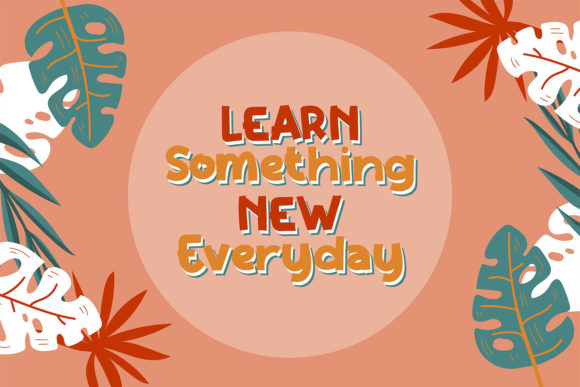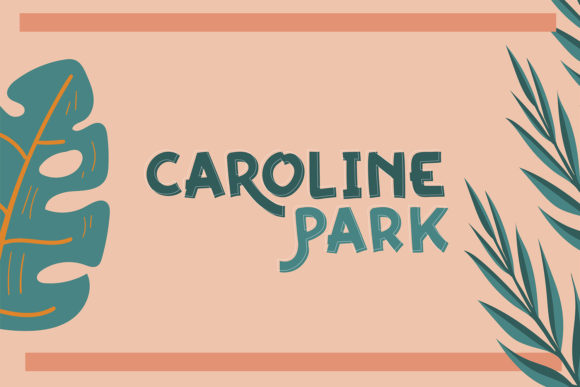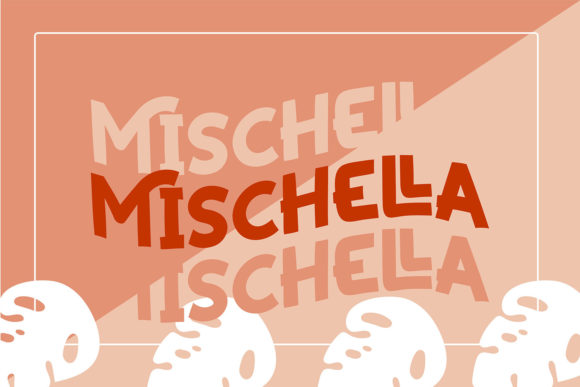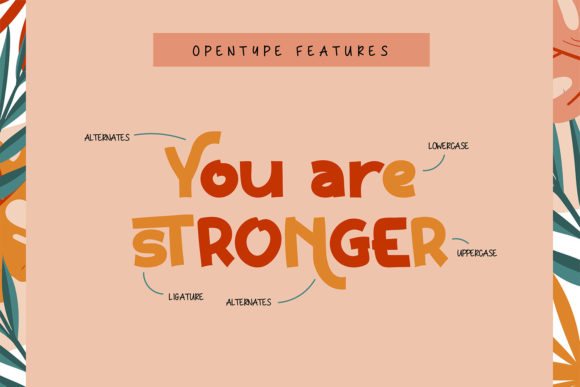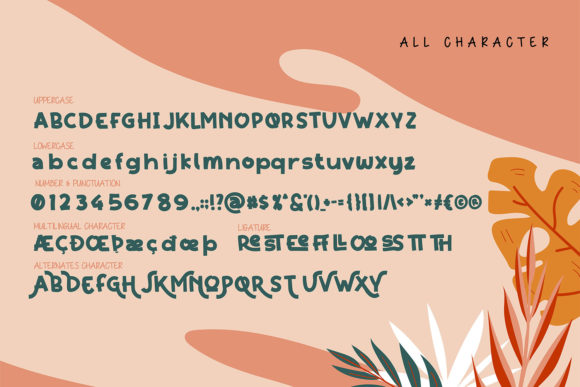
Introducing Forestina Font: The Fun and Trendy Display Font for Crafty Ideas
Are you a designer or crafter looking for a unique and eye-catching font to elevate your creative projects? Look no further than Forestina Font, a fun and trendy display font that’s perfect for a wide range of crafty ideas. In this article, we’ll take a closer look at Forestina Font, its features, and how it can inspire your next creative project.
What is Forestina Font?
Forestina Font is a modern and playful display font that’s designed to add a touch of whimsy to your designs. Its original look is sure to appeal to crafty enthusiasts and designers alike, making it perfect for a variety of projects, from letterheads and titles to stationery and more.
Key Features of Forestina Font
- PUA Encoded: Forestina Font is PUA (Private Use Area) encoded, which means you can access all of the glyphs and swashes with ease. This feature makes it easy to use and customize the font to suit your design needs.
- Fun and Trendy: Forestina Font has a fun and trendy vibe that’s perfect for crafty ideas and designs. Its unique look is sure to make your projects stand out from the crowd.
- Versatile: Forestina Font is a versatile font that can be used for a wide range of projects, from letterheads and titles to stationery and more.
Uses for Forestina Font
Forestina Font is a versatile font that can be used for a variety of projects, including:
- Letterheads: Add a touch of personality to your letterheads with Forestina Font.
- Titles: Use Forestina Font to create eye-catching titles for your blog posts, articles, and more.
- Stationery: Add a touch of whimsy to your stationery with Forestina Font.
- Signage: Use Forestina Font to create eye-catching signs for your business or event.
- Branding: Use Forestina Font to create a unique and memorable brand identity.
Benefits of Using Forestina Font
There are many benefits to using Forestina Font in your designs, including:
- Unique Look: Forestina Font has a unique and eye-catching look that’s sure to make your designs stand out from the crowd.
- Easy to Use: Forestina Font is PUA encoded, making it easy to access all of the glyphs and swashes.
- Versatile: Forestina Font can be used for a wide range of projects, from letterheads and titles to stationery and more.
- Time-Saving: With Forestina Font, you can save time and effort in your design process, as you can easily access all of the glyphs and swashes you need.
Tips for Using Forestina Font
Here are some tips for using Forestina Font in your designs:
- Experiment with Different Sizes: Forestina Font looks great in a variety of sizes, so experiment with different sizes to find the one that works best for your design.
- Pair with Other Fonts: Forestina Font pairs well with other fonts, so try pairing it with a complementary font to add depth and interest to your design.
- Use Swashes and Glyphs: Take advantage of Forestina Font’s PUA encoding and use the swashes and glyphs to add a touch of personality to your design.
Forestina Font is a fun and trendy display font that’s perfect for crafty ideas and designs. Its unique look, versatility, and ease of use make it a great choice for designers and crafters alike. With its PUA encoding, you can easily access all of the glyphs and swashes you need to create eye-catching designs. Whether you’re looking to create letterheads, titles, stationery, or more, Forestina Font is a great choice.